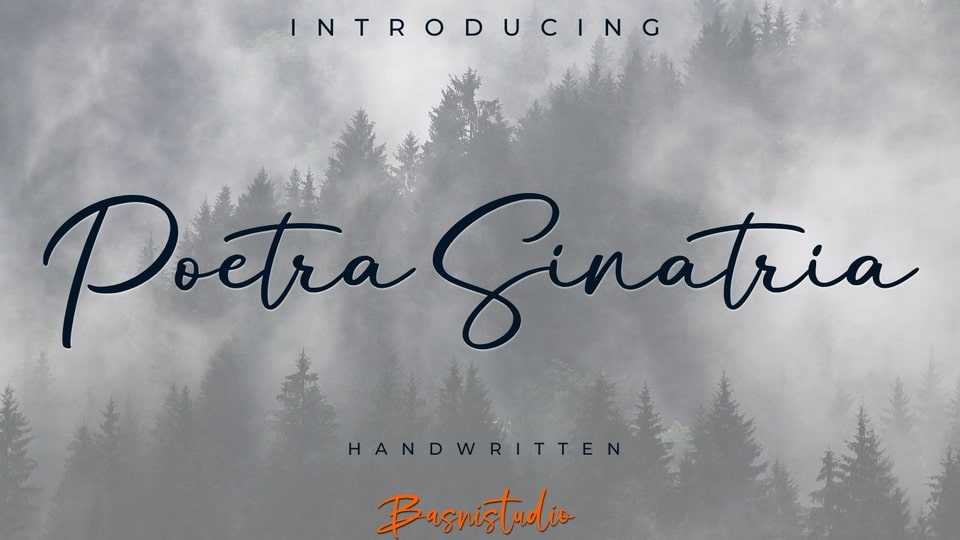
Download Poetra Sinatria font, a dynamic handwritten typeface, made with natural look and precision strokes, perfect for branding, websites, and editorial designs.